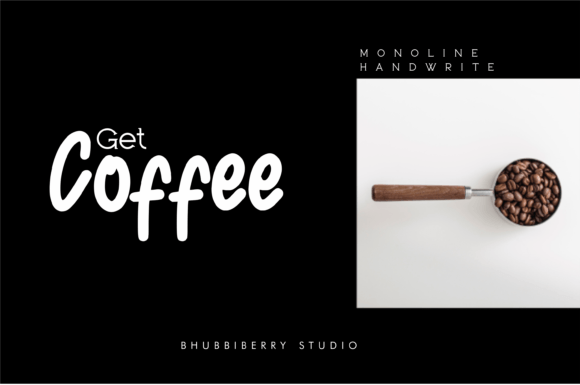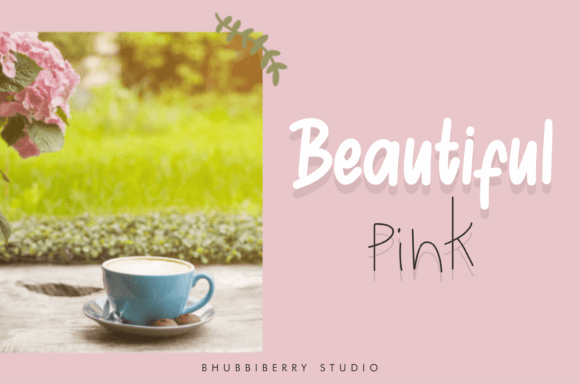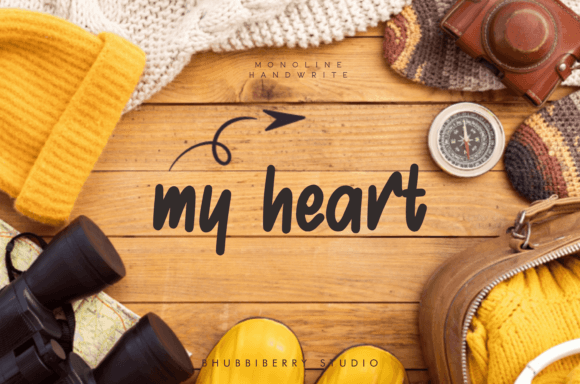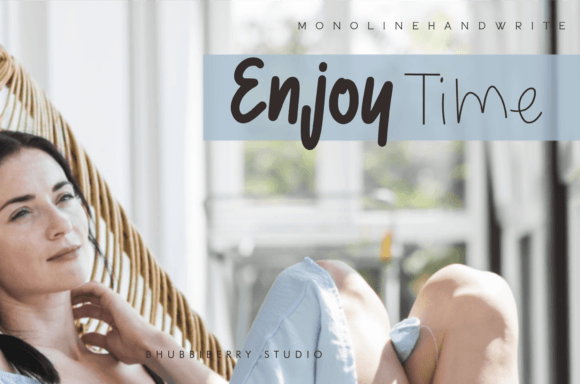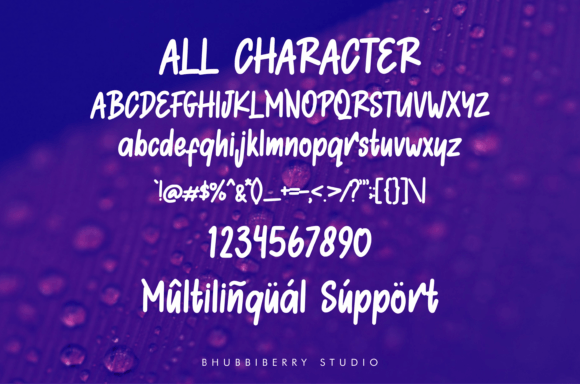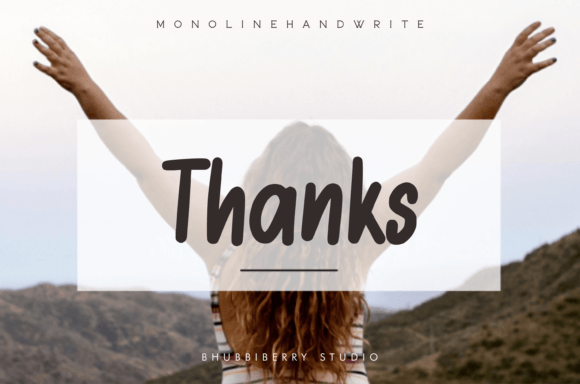
Introduction to Looney Font
Have you ever stared at a blank canvas, feeling like your creative project is missing that one special something? The moment of truth arrives when you’re searching for the perfect font to elevate your design. That’s when the Looney Font steps in – a fun and playful display font that adds a modern yet whimsical touch to your work.
With its unique style, Looney Font is a valuable resource for designers who want to make their designs stand out. This high-quality font is perfect for anyone looking to add a touch of personality to their work. Whether you’re working on a personal project or a commercial design, Looney Font is sure to bring a smile to your face and a touch of magic to your design.
Key Features of Looney Font
- High-quality, hand-drawn design resource ideal for creative projects.
- Transparent background for seamless integration into various design applications.
- Font size: scalable, with no pixelation at high resolutions (up to 300 DPI).
- Designed to be versatile and suitable for use in logos, branding, and digital graphics.
- Perfect for designers looking for a unique and creative design resource for their next project.
Honest Review: Looney Font
As a designer, I’m always on the lookout for high-quality design resources that can elevate my creative projects. Recently, I stumbled upon the Looney Font, and I’m excited to share my honest review with you.
What works well: ✨ The Looney Font is a beautiful, modern script font that’s perfect for adding a touch of whimsy to your designs. The font is highly customizable, with a transparent background that makes it easy to use on any background color. I also appreciate the fact that it’s a free download, making it a valuable resource for designers of all levels.
Here are some key features that I love:
- Highly customizable with a range of style options
- Transparent background for easy use on any background color
Limitations: ⚠️ While the Looney Font is a great resource, I do wish it came in more weights and styles. Additionally, the font can be a bit too playful for some designs, so be sure to use it sparingly.
Overall, I’m really impressed with the Looney Font. It’s a great addition to any designer’s toolkit, and I appreciate the transparency and flexibility it offers. If you’re looking for a fun and modern script font, I highly recommend giving it a try.
The Looney Font is a high-quality design resource ideal for creative projects requiring a unique and playful touch. This versatile font is available for free download and can be used in a variety of applications.
Tips for Getting the Most Out of Looney Font
To get the most out of the Looney Font, use it in conjunction with a transparent background to create a visually appealing design. You can also experiment with different font sizes and colors to create a unique look.
The Looney Font is commonly used in children’s book illustrations, party invitations, and social media graphics. Its playful and whimsical design makes it perfect for creative projects that require a lighthearted touch.
When to use: Comic Sans MS is ideal for informal, humorous content or projects with a vintage feel.